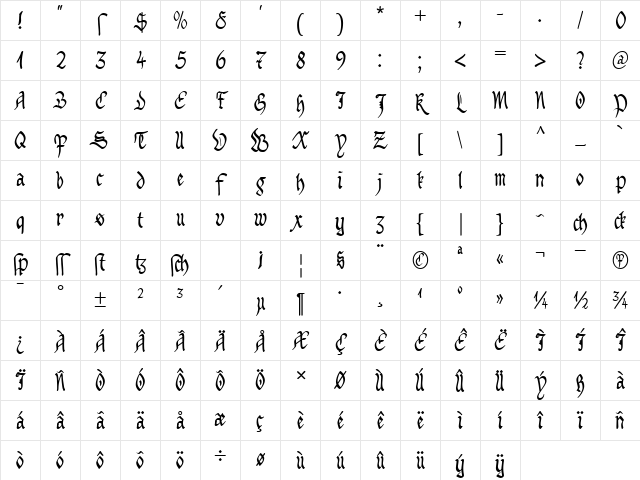
MA Bastard Anglicana DB Normal
Design Context for MA Bastard Anglicana DB
MA Bastard Anglicana DB is a composed and adaptable typeface that performs quietly and consistently across a wide range of design contexts.